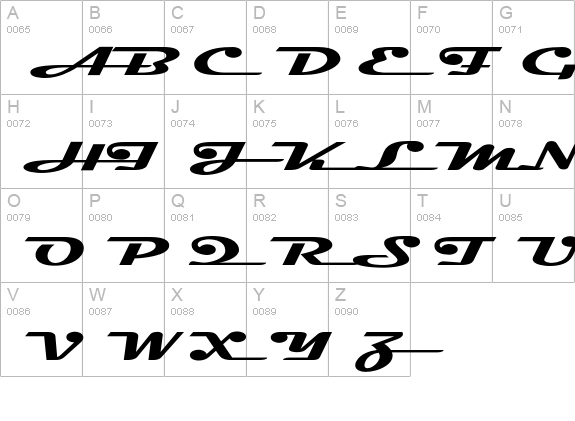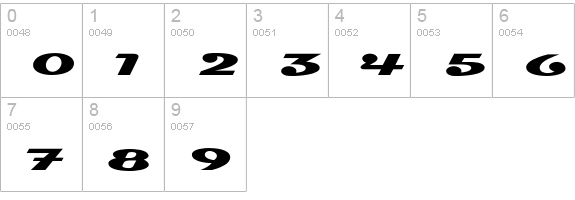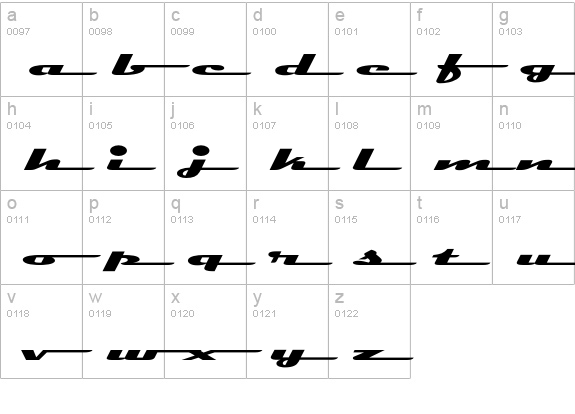
Magneto-SuperBoldExtended Font Details
Introducing Magneto-SuperBoldExtended, a mesmerizing font that combines elegance with a bold, magnetic presence. This unique typeface captivates with its distinctive design, drawing inspiration from the magnificence of electromagnetism. The letters of Magneto-SuperBoldExtended gracefully intertwine, forming a seamless flow that exudes confidence and power. Each character possesses a subtle yet striking curvature, creating a harmonious balance between strength and finesse. The extended boldness of the font adds an extra layer of impact, ensuring that your message will be conveyed with utmost authority. This versatile font is perfect for a wide range of projects, whether you're designing eye-catching logos, crafting attention-grabbing headlines, or creating stunning digital artwork. Its versatility knows no bounds, making it an indispensable tool for graphic designers, advertisers, and creatives alike. But what makes Magneto-SuperBoldExtended even more appealing is that it is freely available to download at FontsMarket.com. Yes, you read that right! This extraordinary font can be yours without any cost, allowing you to unleash your creativity without limitations. Download Magneto-SuperBoldExtended today and witness how its magnetic allure transforms your designs into masterpieces. Embrace the power of this captivating font and let your imagination soar to new heights.